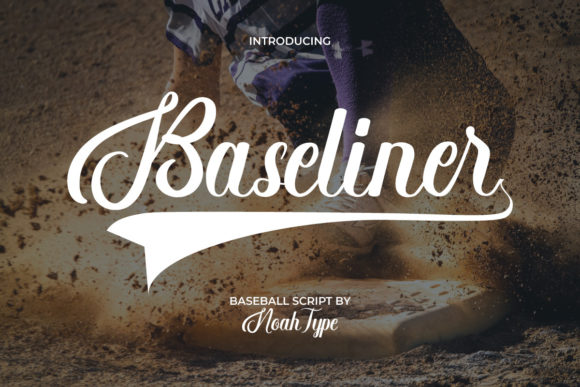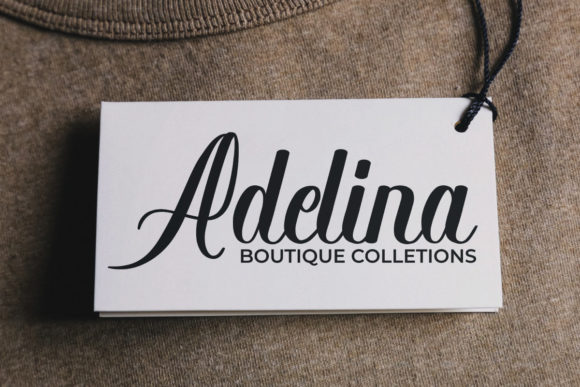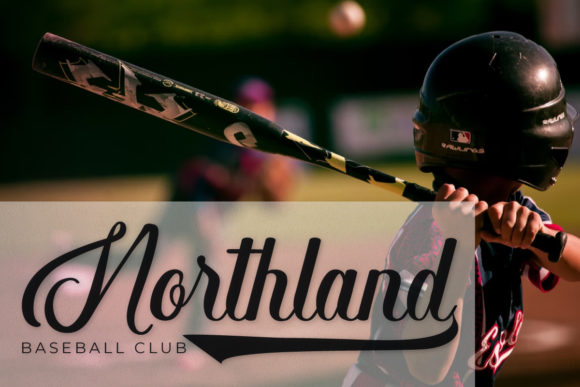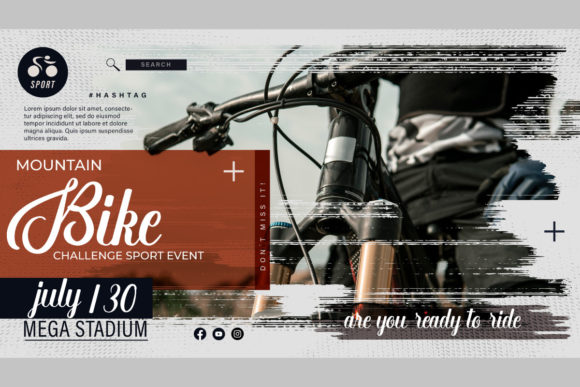
About Baseliner Font
Baseliner is a script font inspired by the baseball world. Carefully crafted to create to look as natural as possible, this font will add a personal handwriting look twist to any design project. . This brush font is for anyone who needs a sporty script style for their designs. It will be awesome for logos and logotypes, headlines, products packaging, screen printing, signage, social media posts, stationery fashion, games, products packaging, sports, videos, and for anyone who needs a beautiful script style for their designs.